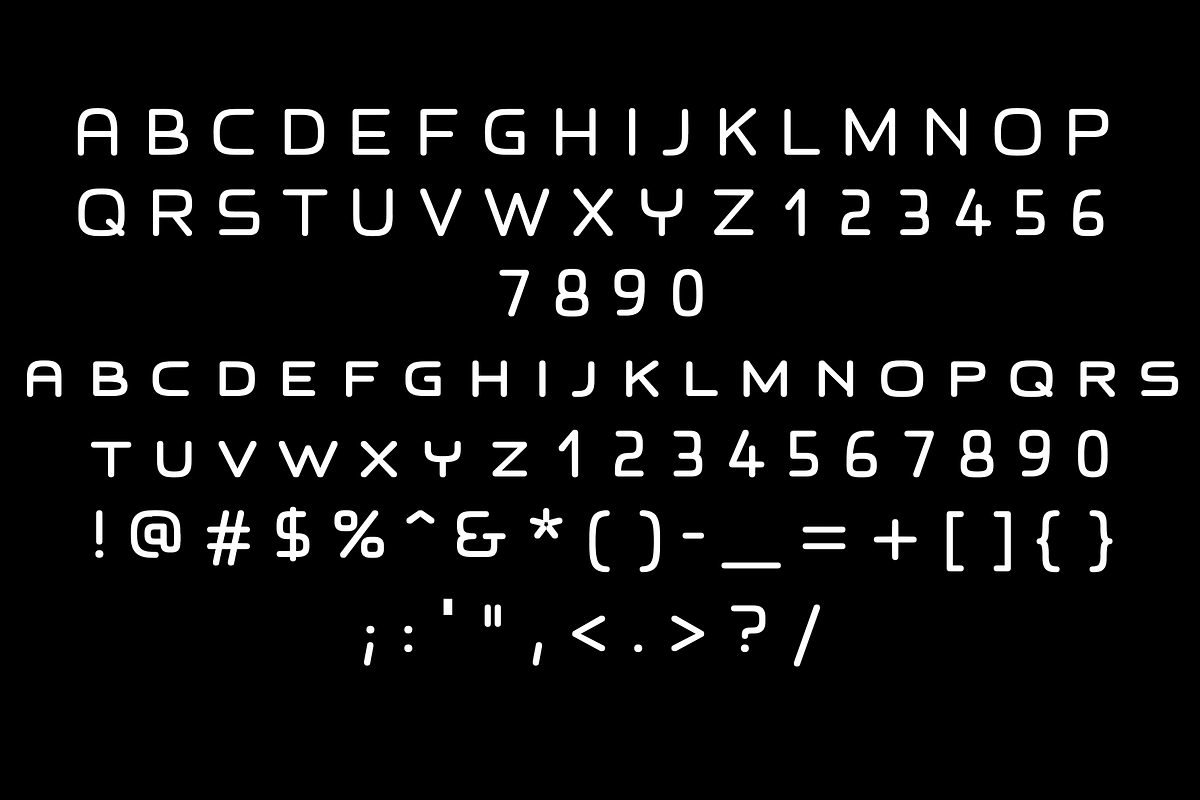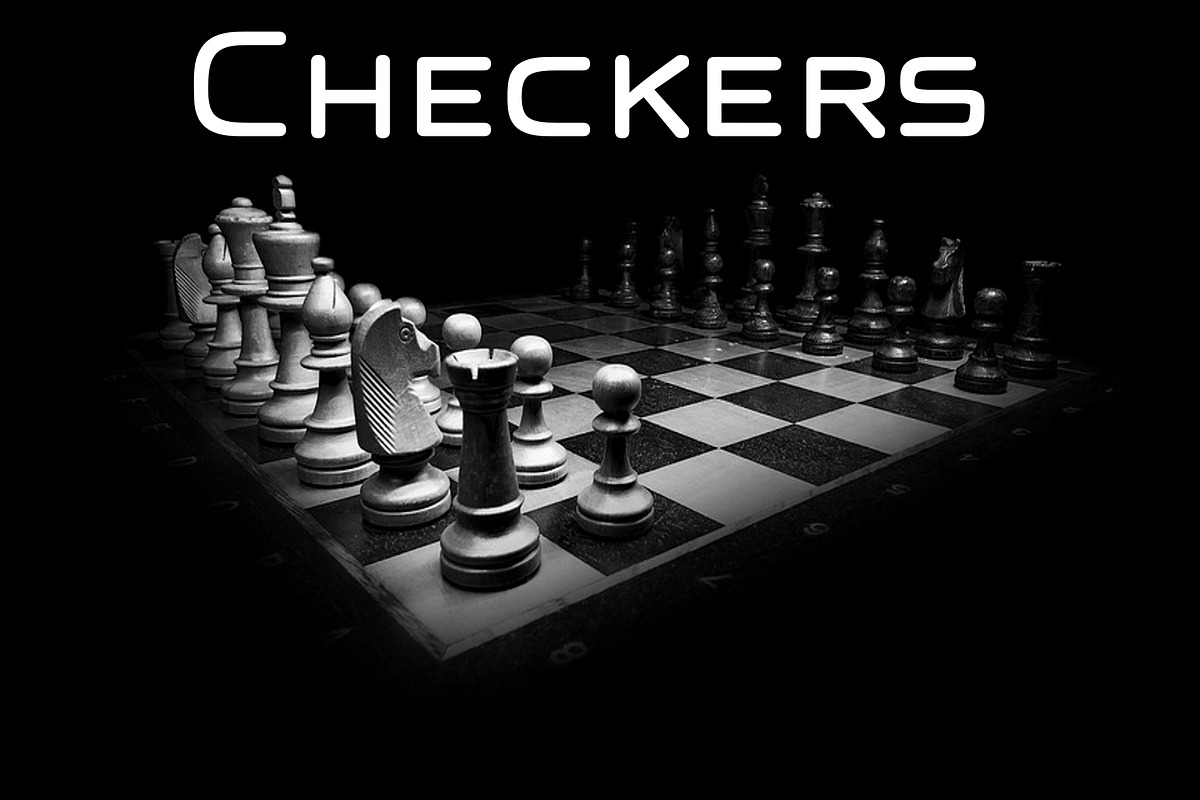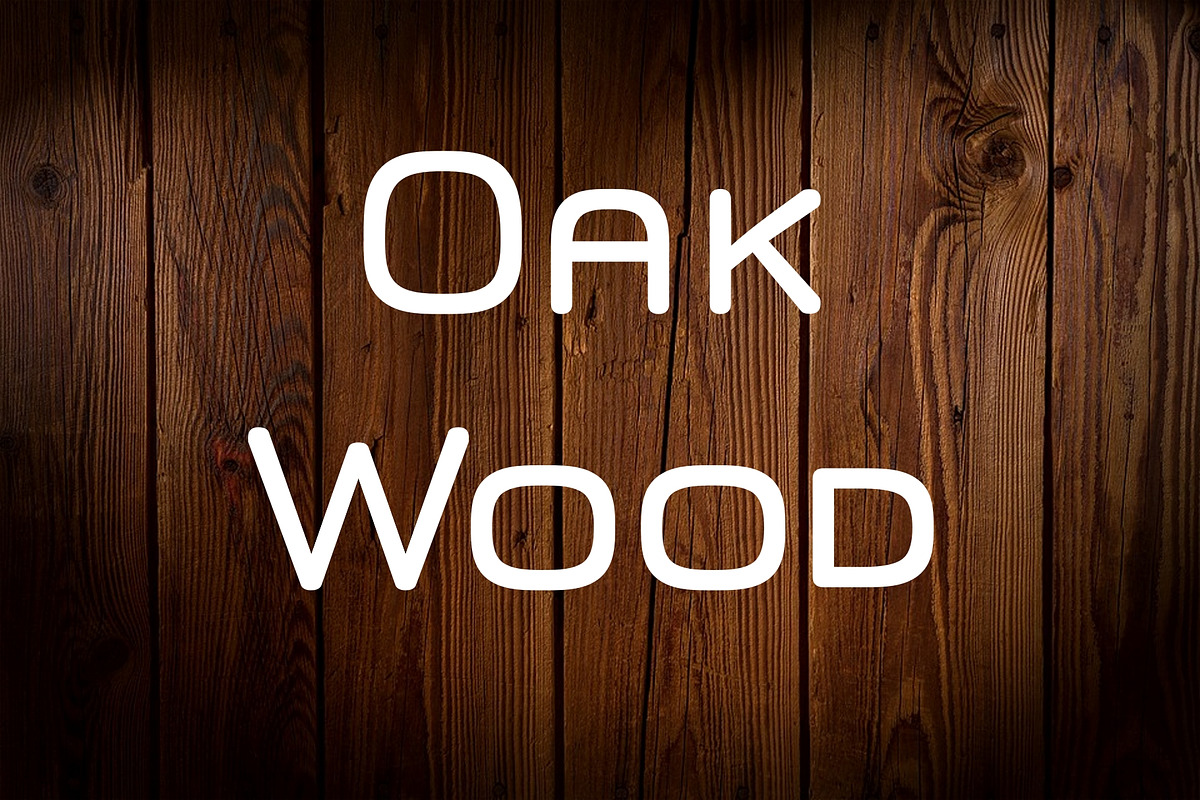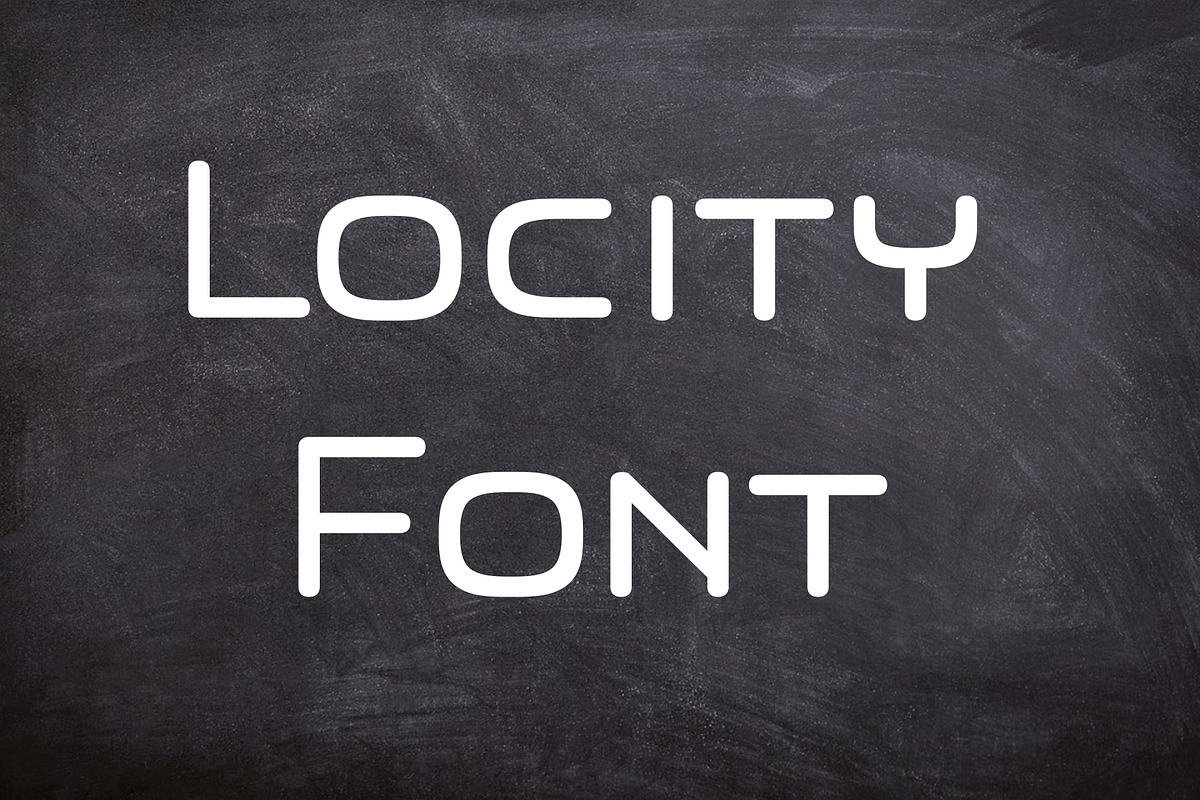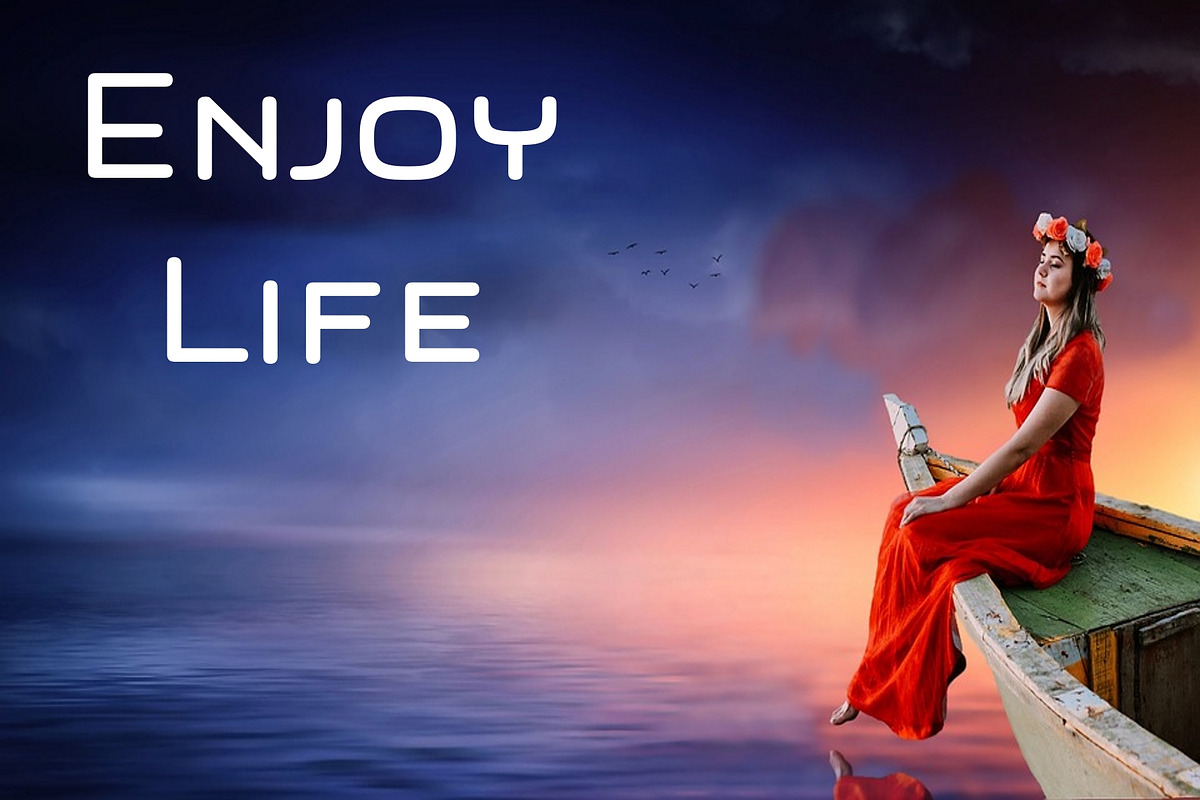
Locity Font
Locity Font by ultimatefontcreator is a font selected for branding, posters, packaging, typography.
Why Locity Font is worth a look
Locity Font by Ultimate Font Store fits naturally into Branding, posters, packaging, typography.